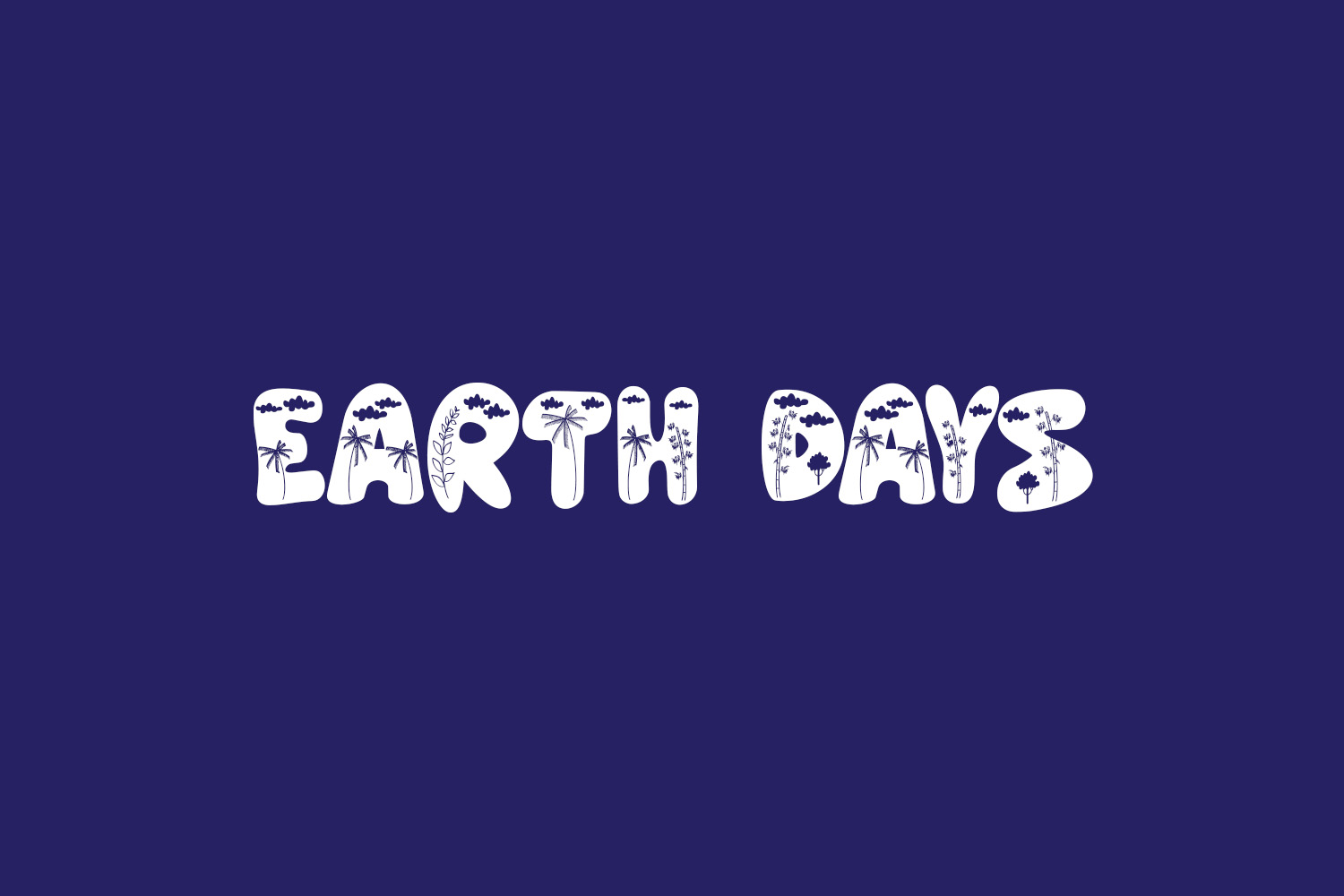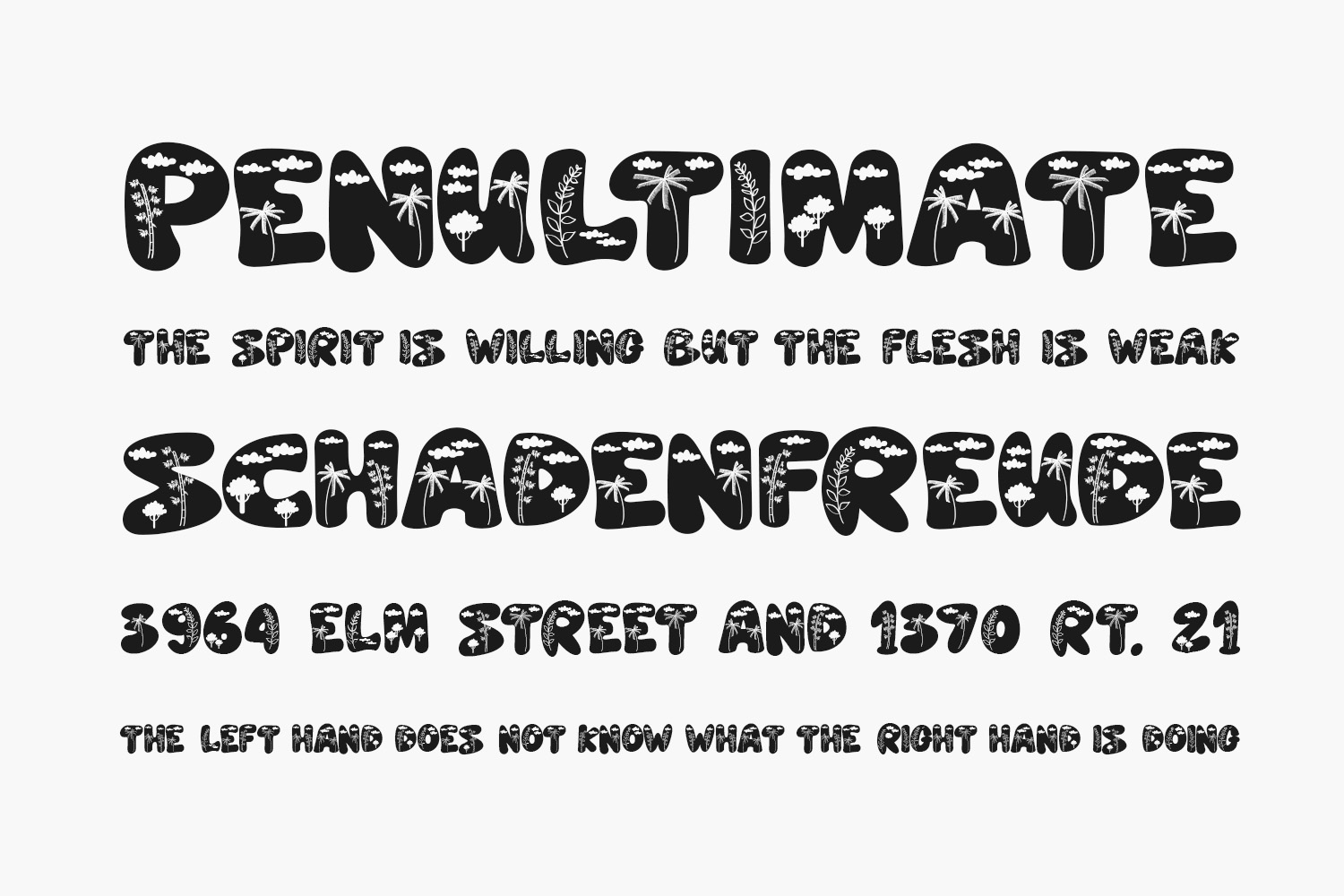
Earth Days Free Font is a cool, thick lettered and bubbly display font. This original look will appeal to a wide range of crafty ideas, from letterheads and titles to stationery. Earth Days Free Font was designed by Letterara and is free for personal use only. Please purchase the full version for commercial use.